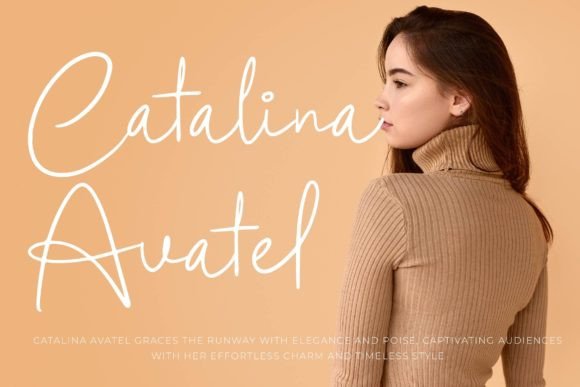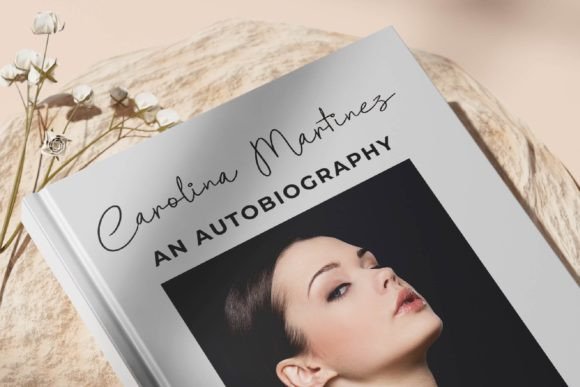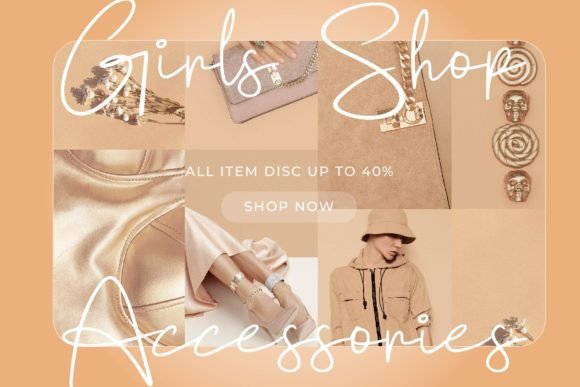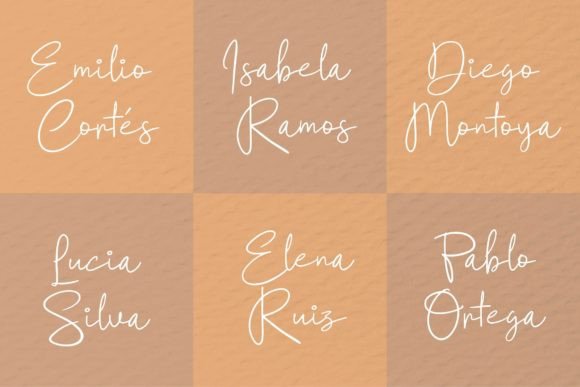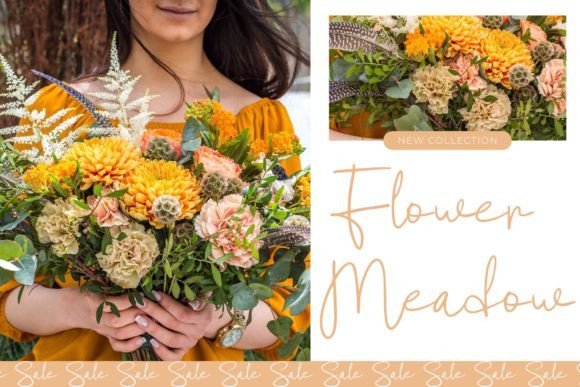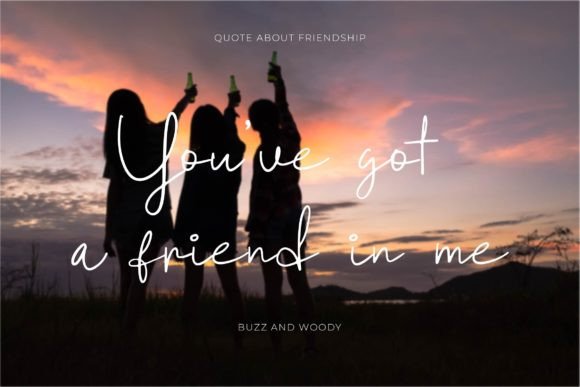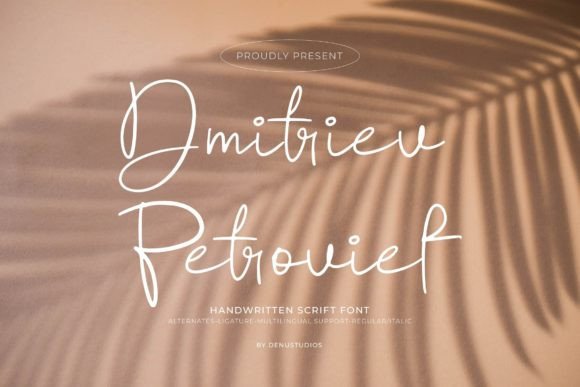
Dmitriev Petroviel Font: Adding a Personal Touch to Your Designs
In the world of typography, fonts play a crucial role in conveying the tone and personality of a design. For crafters and designers looking to add a personal touch to their projects, Dmitriev Petroviel font is an excellent choice. This handwritten font boasts a smooth, natural flow that mimics personal handwriting, giving it a warm and friendly feel.
The Characteristics of Dmitriev Petroviel Font
Dmitriev Petroviel is a carefully crafted handwritten font that stands out for its unique characteristics. Its letters are designed to resemble personal handwriting, with a smooth and natural flow that gives it a warm and inviting appearance. The font’s handmade quality makes it perfect for creative projects where a personal touch is desired.
Uses of Dmitriev Petroviel Font
The versatility of Dmitriev Petroviel font makes it suitable for a wide range of applications. Here are some of the ways designers and crafters can use this font to elevate their projects:
- Invitations and Cards: Add a personal touch to your invitations, greeting cards, and postcards with Dmitriev Petroviel font. Its warm and friendly feel makes it perfect for special occasions like weddings, birthdays, and holidays.
- Designs and Crafts: Use Dmitriev Petroviel font to add a handmade touch to your designs, whether you’re creating digital art, scrapbooking, or paper crafting.
- Branding and Packaging: For businesses looking to create a personal brand identity, Dmitriev Petroviel font can be used for logos, packaging, and marketing materials.
- Digital and Print Media: The font’s legibility and readability make it suitable for use in digital and print media, including blogs, magazines, and newspapers.
Benefits of Using Dmitriev Petroviel Font
There are several benefits to using Dmitriev Petroviel font in your designs:
- Unique and Personal: The font’s handmade quality gives it a unique and personal touch that sets it apart from more formal fonts.
- Easy to Read: Despite its handwritten nature, Dmitriev Petroviel font is easy to read, making it suitable for use in a variety of applications.
- Versatile: The font’s versatility makes it suitable for use in a wide range of projects, from digital designs to print materials.
- Time-Saving: Using a pre-made font like Dmitriev Petroviel can save designers and crafters time and effort, allowing them to focus on other aspects of their project.
Tips for Using Dmitriev Petroviel Font
To get the most out of Dmitriev Petroviel font, here are some tips to keep in mind:
- Use it Sparingly: While Dmitriev Petroviel font is perfect for adding a personal touch, it’s best to use it sparingly to avoid overwhelming the design.
- Pair it with Other Fonts: Experiment with pairing Dmitriev Petroviel font with other fonts to create visual interest and add depth to your design.
- Adjust the Size and Color: Adjust the size and color of the font to suit your design and make it stand out.
Dmitriev Petroviel font is a versatile and unique handwritten font that can add a personal touch to a wide range of design projects. Its smooth, natural flow and warm, friendly feel make it perfect for creative projects, invitations, cards, and designs. With its ease of use and versatility, Dmitriev Petroviel font is a valuable addition to any designer’s or crafter’s toolkit.
Overall, Dmitriev Petroviel font is a great choice for designers and crafters looking to add a personal touch to their projects. Its unique characteristics, versatility, and ease of use make it a valuable asset for any creative project.